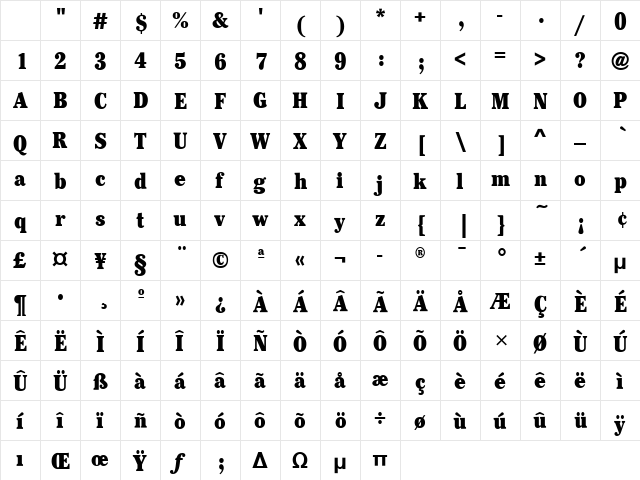
Complete CheltenhamBookCdITC Ultra glyph index. Displaying only characters natively supported by CheltenhamBookCdITC Ultra font.
CheltenhamBookCdITC is a composed and adaptable typeface that performs quietly and consistently across a wide range of design contexts.
Who designed the CheltenhamBookCdITC Ultra font?